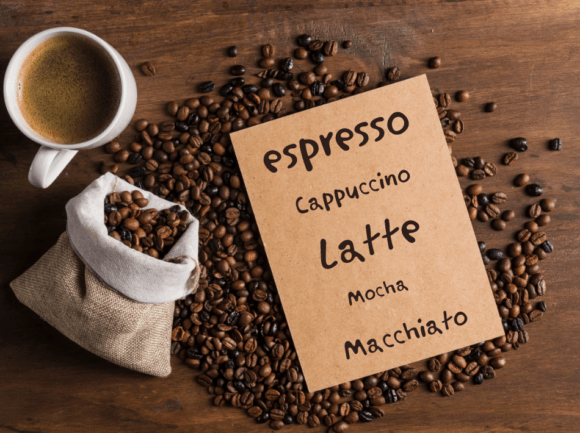
Introduction to Mistietoe Hand Font
Mistietoe Hand is a cute and playful handwritten display typeface perfect for children’s projects, teachers, and fun holiday designs.
Its rounded letters and cheerful strokes make every word look friendly and full of joy 💕 This adorable font is ideal for classroom worksheets, kids’ journals, labels, cards, and storybooks.